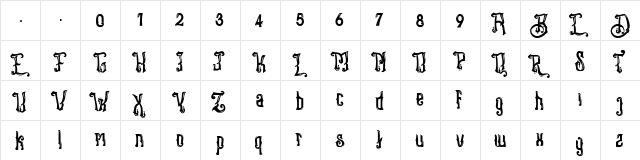
Stangbunder Regular
| Foundry | Runsell graphic |
| Designer | Fitriyawan |
Design Context for Stangbunder Typeface
Stangbunder is a composed and adaptable typeface that performs quietly and consistently across a wide range of design contexts.